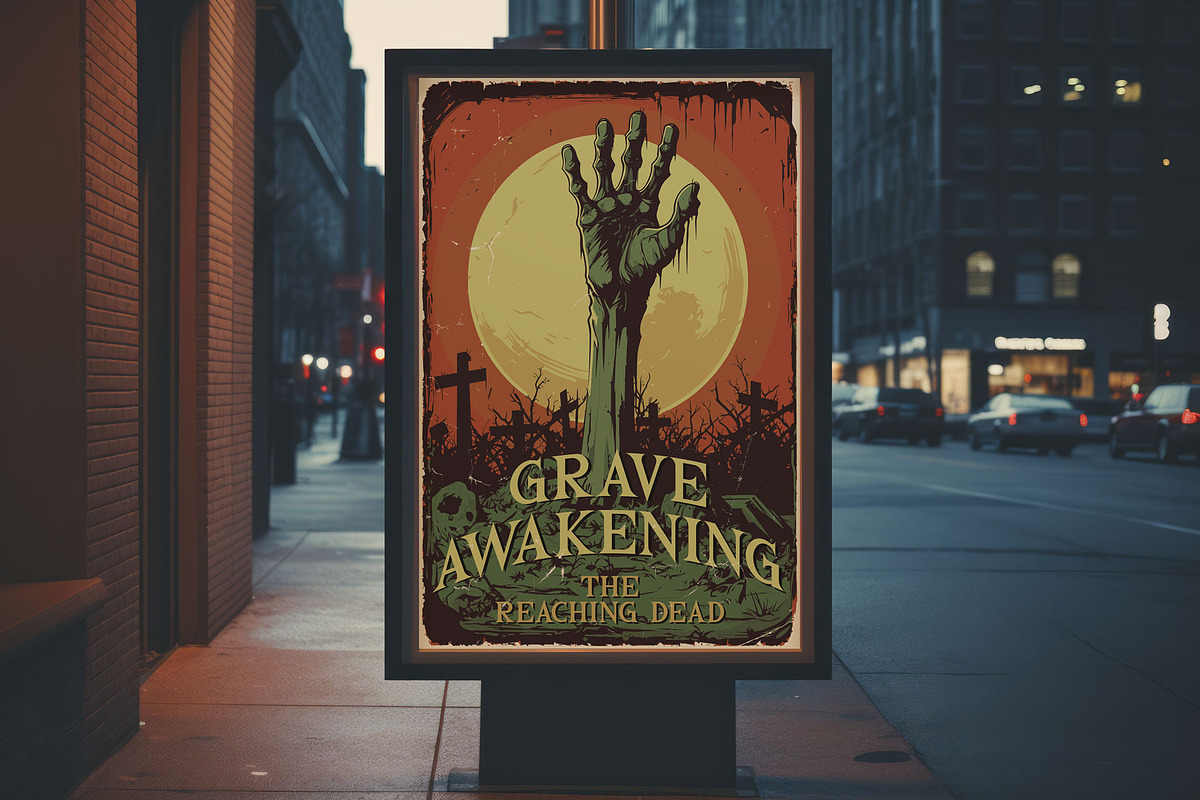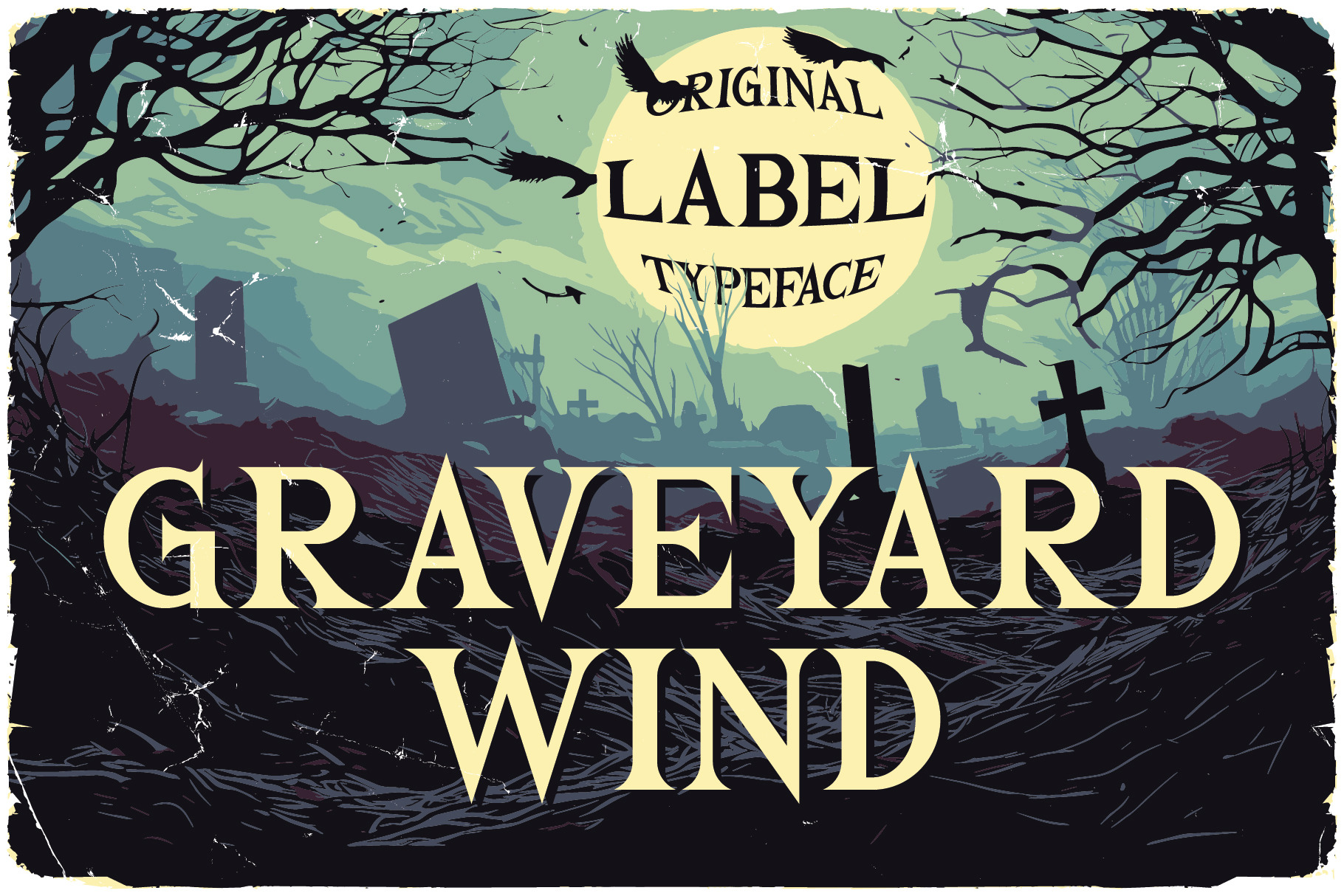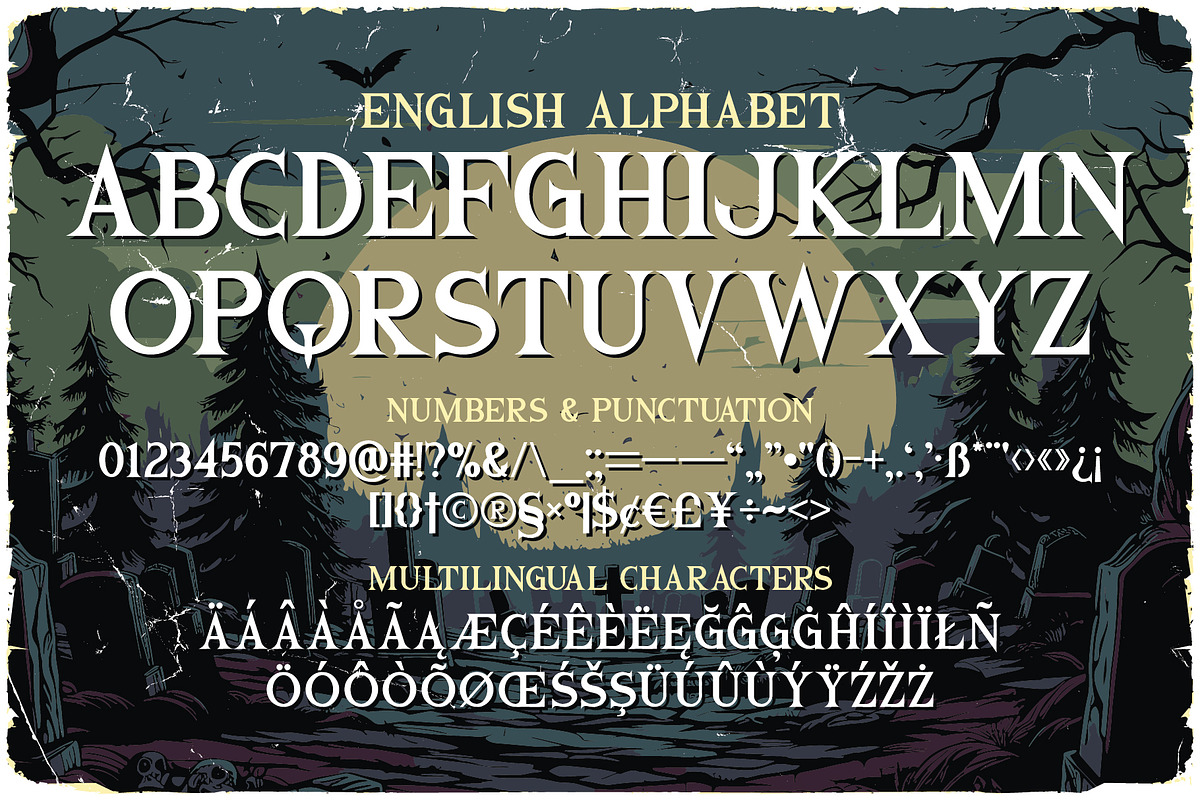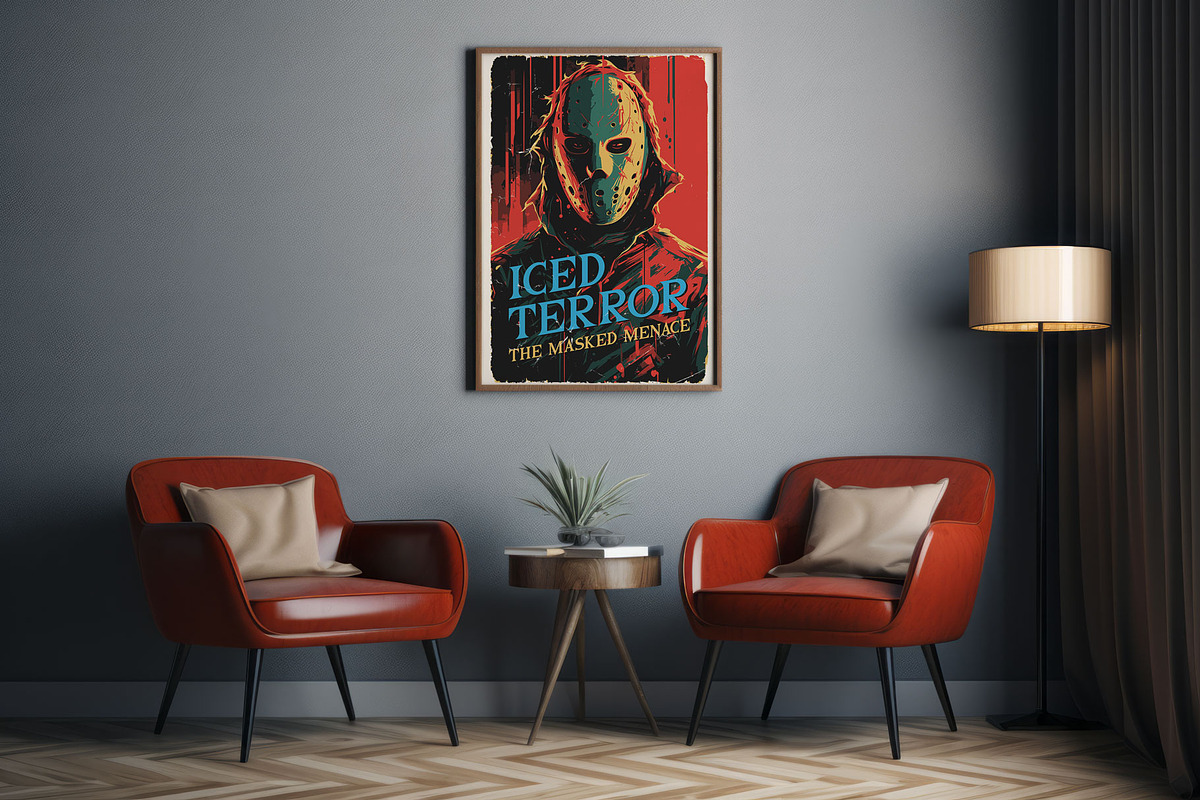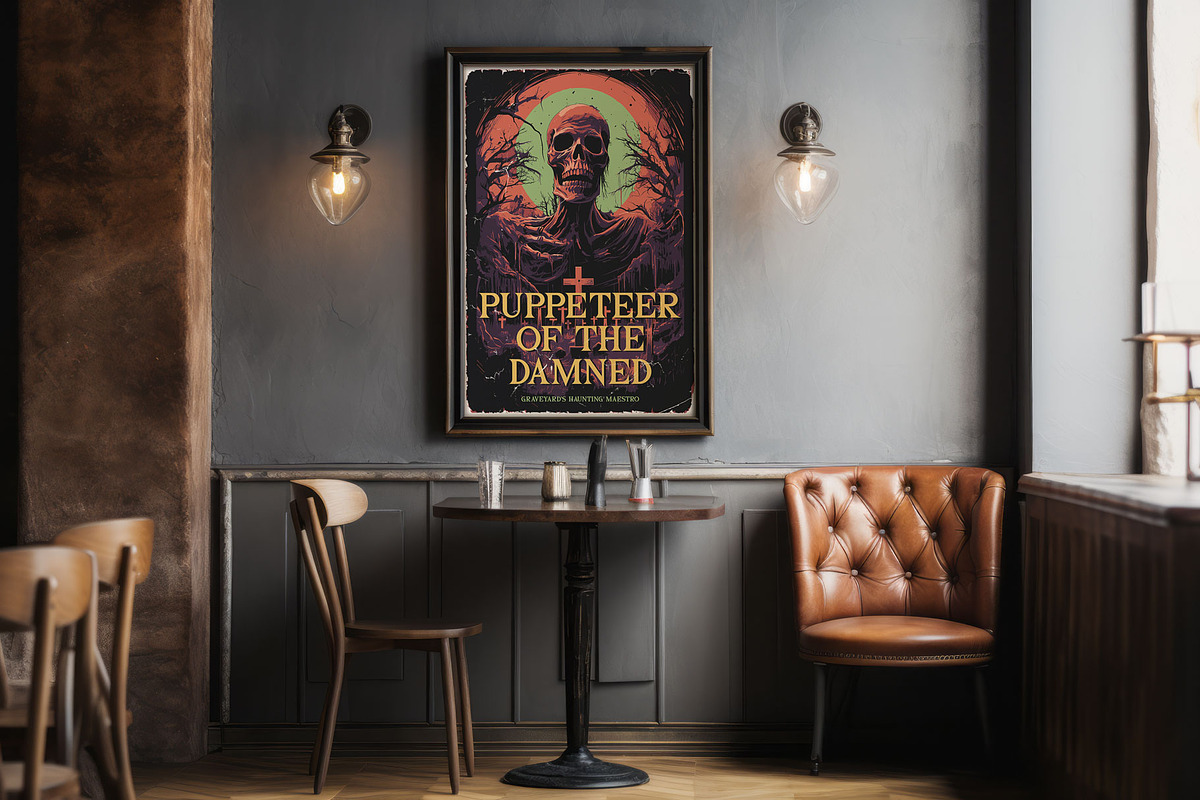
Graveyard Wind label font
Description: Step into the hauntingly nostalgic world of 80s horror films with 'Graveyard Wind' a meticulously handcrafted font that channels the chilling essence of vintage movie posters. This font will infuse your designs with the eerie charm and crafty appeal you've been seeking.
Unique Font: 'Graveyard Wind' boasts meticulously designed letters, numbers, and additional characters inspired by the spine-tingling aesthetics of the 80s.
Multilingual Mastery: Your audience knows no bounds with our font, offering complete multilingual support.
- Recreate the authentic atmosphere of vintage horror films with this unique font.
- Elevate your poster designs, t-shirt graphics, and logos with an unmistakable crafty touch.